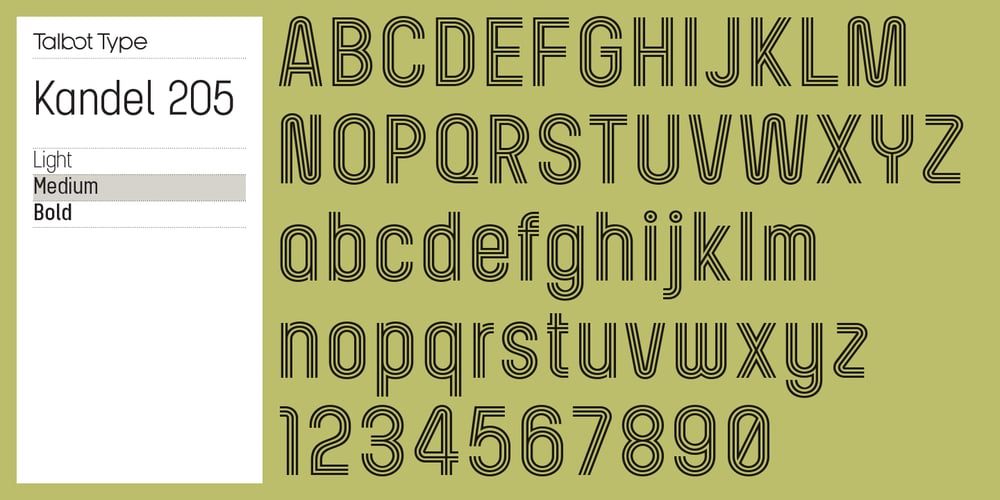
Kandel 205 Font Family was designed by Adrian Talbot and published by Talbot Type. Kandel 205 contains 6 styles and family package options. Kandel 205 is a geometric, tri-line, display and headline font available in a family of three weights. Its bold, graphic styling gives it great stand-out qualities and a highly individual look. It’s particularly well suited to bringing energy to designs, or for designs with a sporting theme. It’s also available with character variations as Kandel 105.